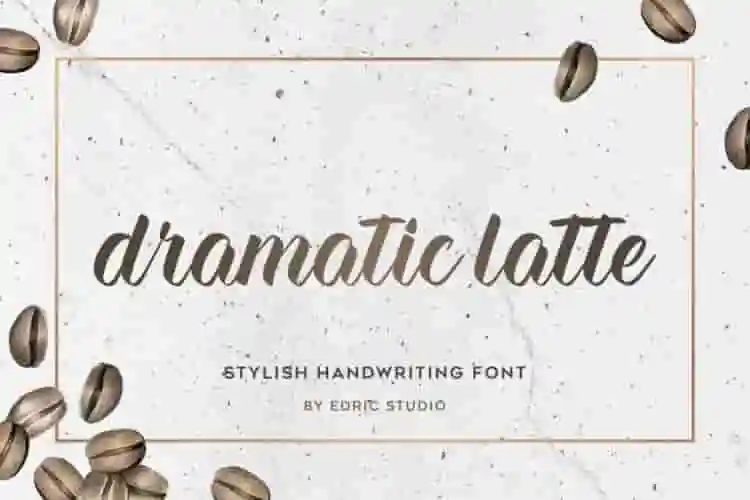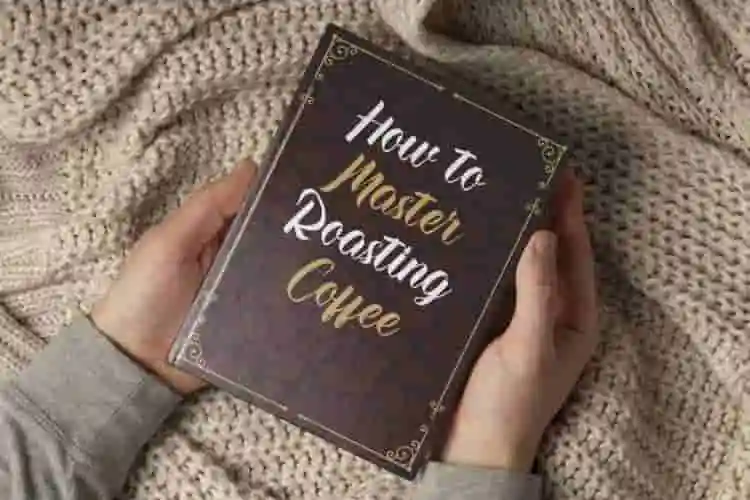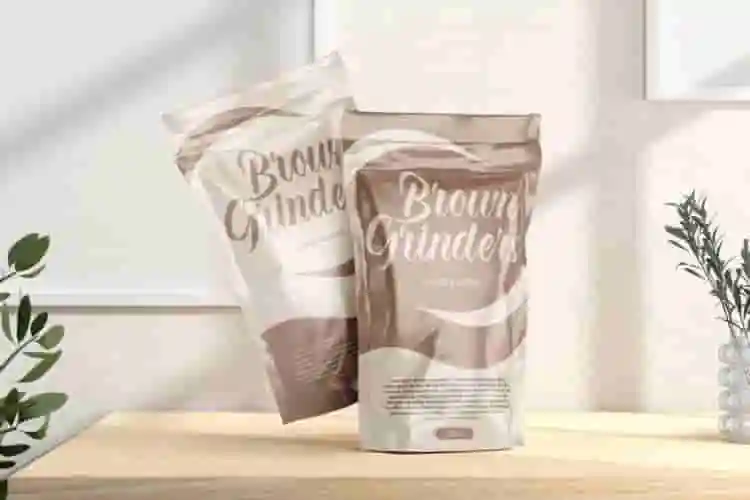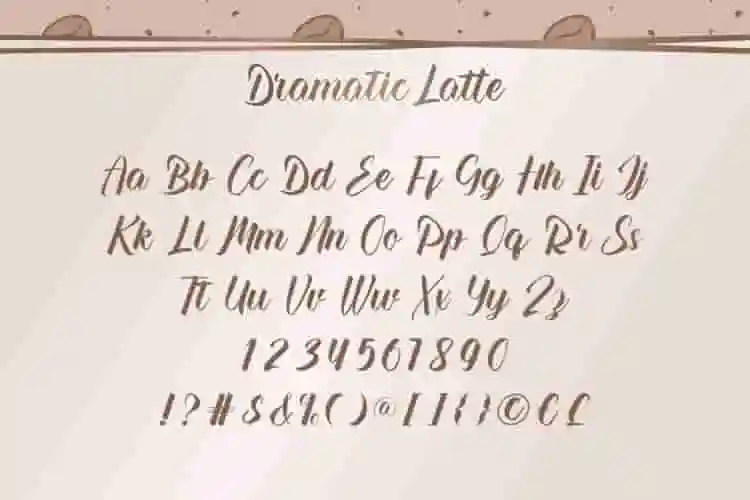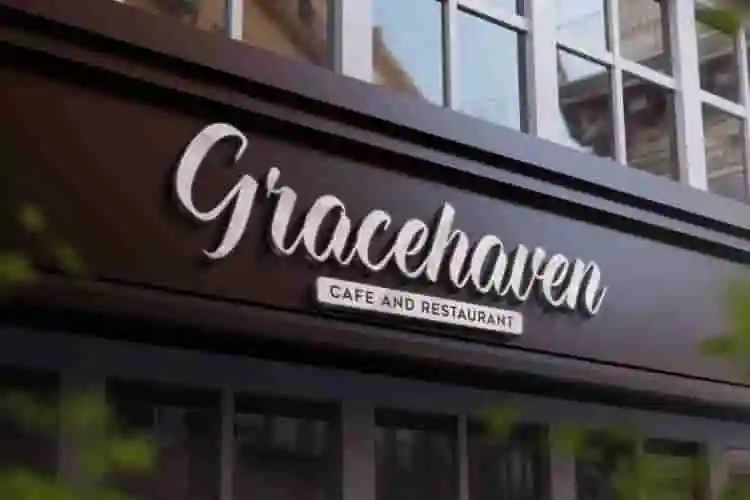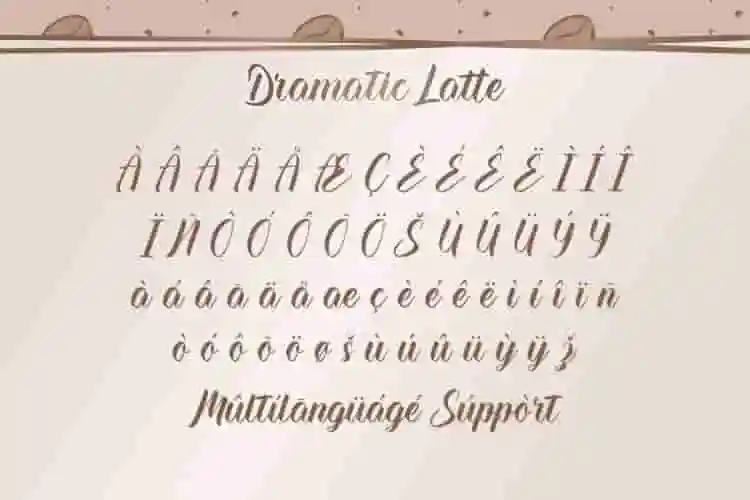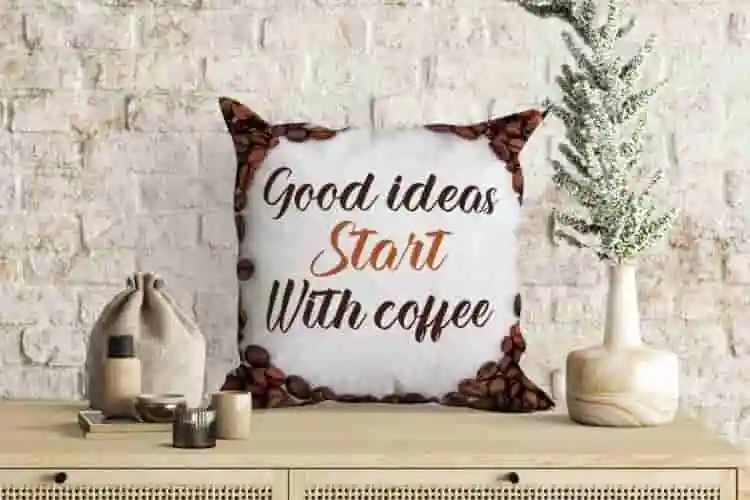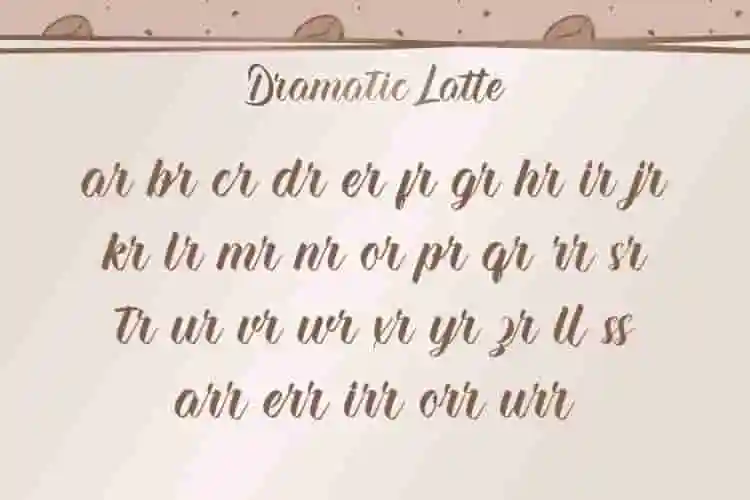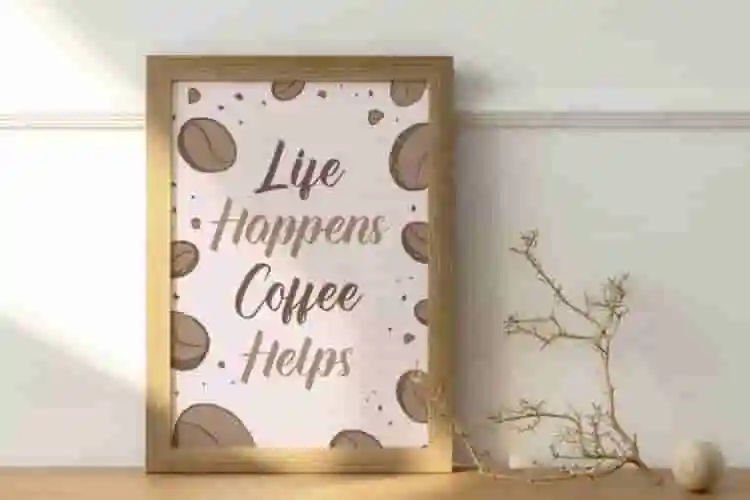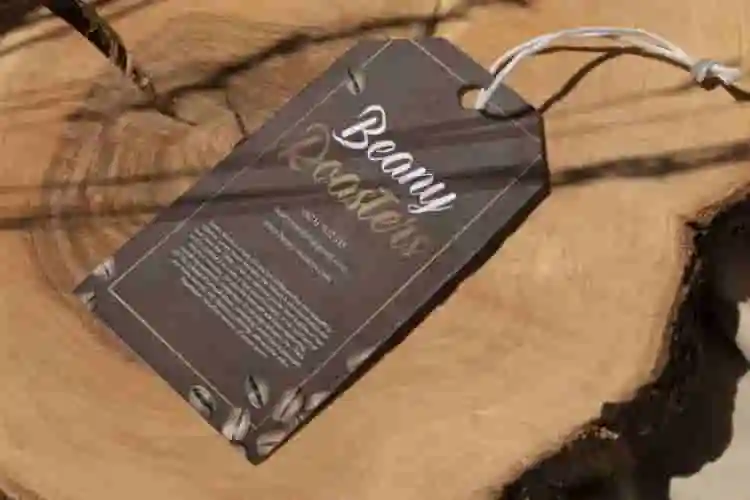
Dramatic Latte Font is a casual and stylish calligraphic font from EdricStudio. This font is perfectly crafted and easy to read so it will be suitable for any industry such as, accessories, author, café, event organizer, handicraft, homeware, photography, printing, publishing, restaurant, and anything that requires an awesome handwriting look.
Dramatic Latte Font comes with a full set of Uppercase and Lowercase Basic Characters, Number, a large range of Punctuation and Symbol, also has a Ligature characters which makes this font look perfectly bound. It has a stunning characters set, perfectly managed with well spaced and kerning. Dramatic Latte Font will be great for any projects (with extended license) including : billboard, brand logo, cover, header, label, product packaging, quote, screen print, signage, etc.
Introducing Dramatic Latte, a graceful and sophisticated calligraphic font that blends classic elegance with a modern twist. Inspired by delicate handwriting and the smooth swirl of a latte, this font brings warmth and luxury to your designs.
Perfect for wedding invitations, branding, packaging, and quotes, Dramatic Latte Calligraphic Font adds a timeless touch to every project. Its flowing strokes and romantic curves make it ideal for creators seeking a refined, handcrafted feel.
- Full set of uppercase & lowercase characters
- Alternates & ligatures for stylistic variation